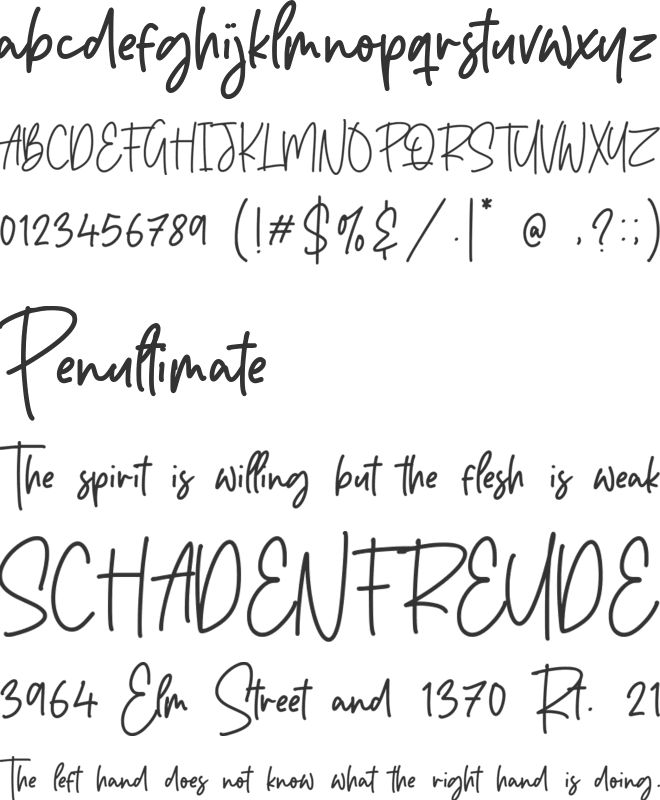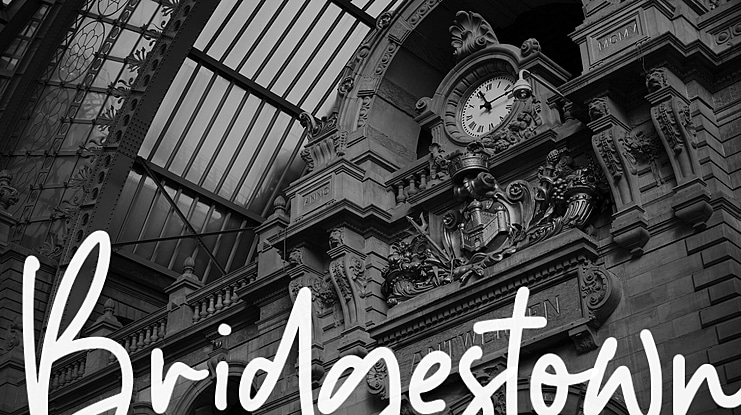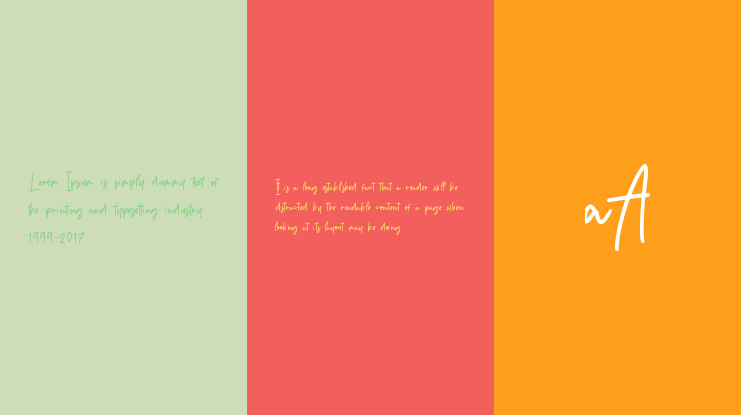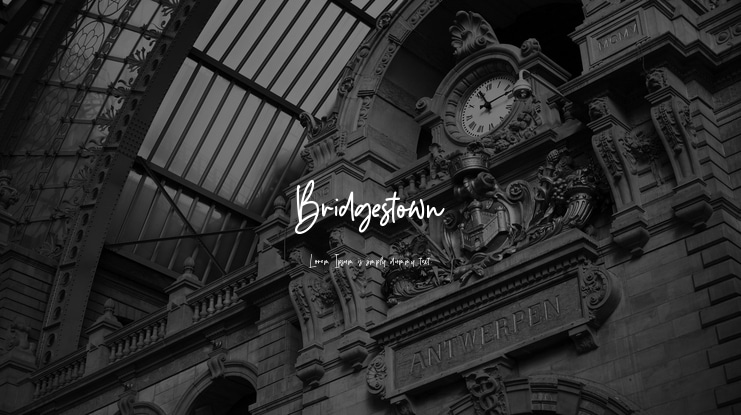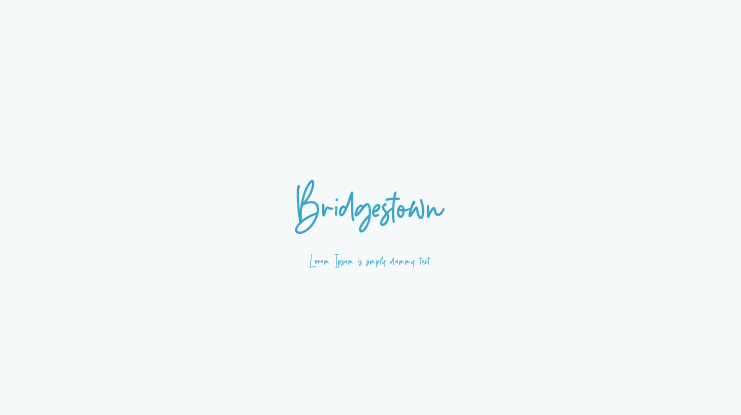
Bridgestown Font
Balpirick Studio
Proudly Present, Bridgestown Font.
Bridgestown is a Monoline Handwritten Font.
Bridgestown is perfect for product packaging, branding project, megazine, social media, wedding, or just used to express words above the background.